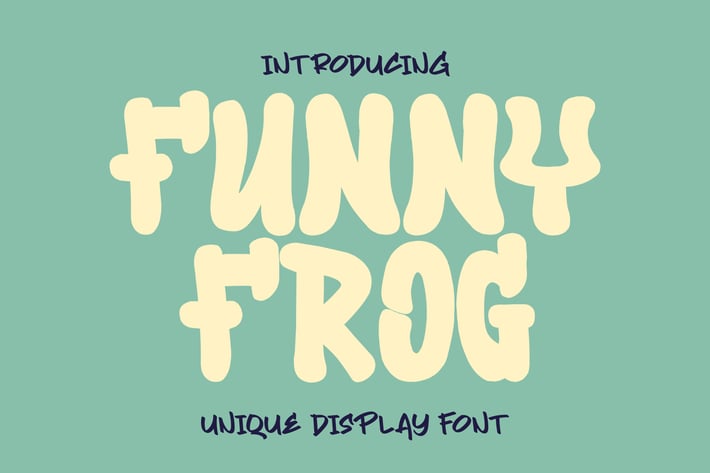
Funny Frog - Funny Display Font
Funny Frog - A Fun Display Font With Cute Characters. It will elevate a wide range of design projects to the highest level, be it branding, headings, Kids Zone, designs, invitations, Snack Package, logotype, wall art illustration, labels, and much more!